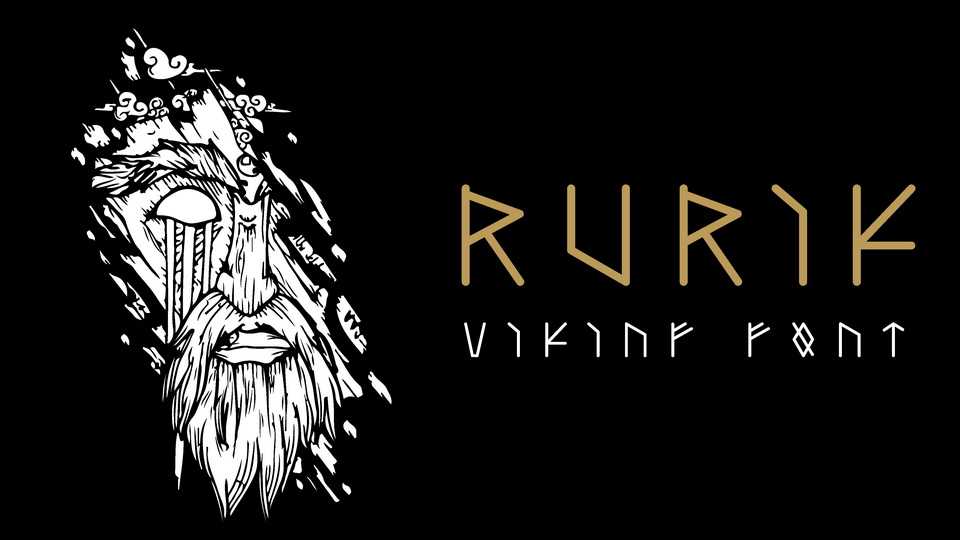
Download Ruruk font, a unique typeface that combines the ancient runes of various tribes, adaptations and varieties. Rurik can be used as: emphasis on the site or in a separate section; in themed tattoos for personal use; for brandbook or individual branded media.
Designer: Sergiy Kulikov